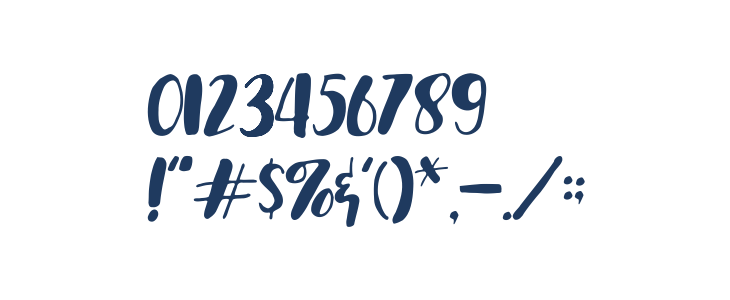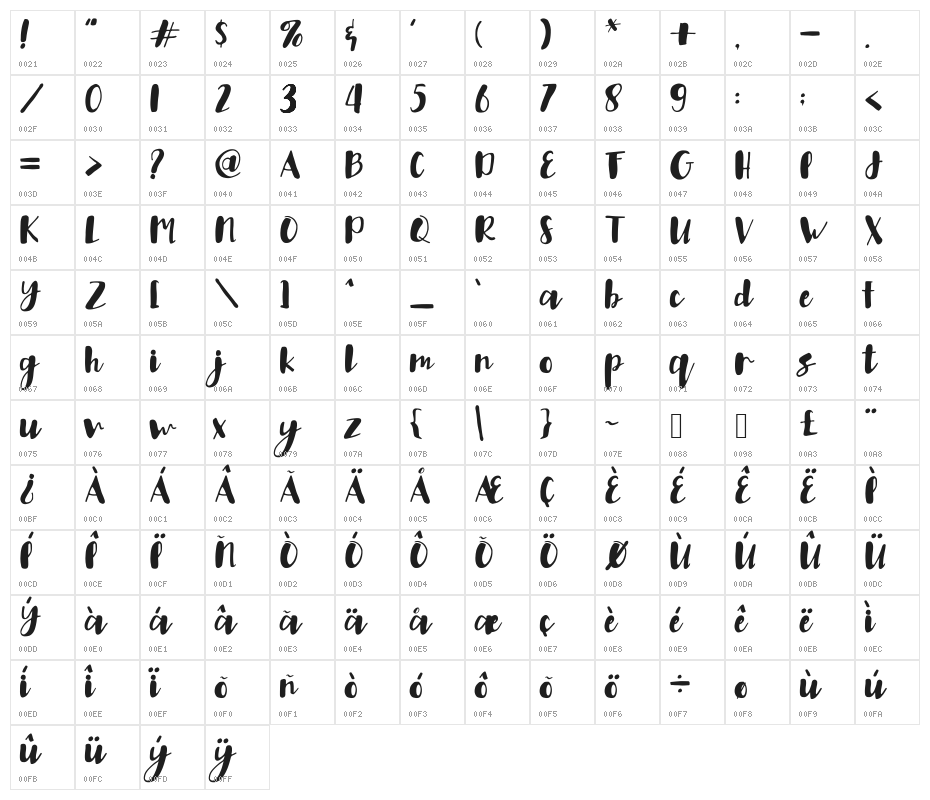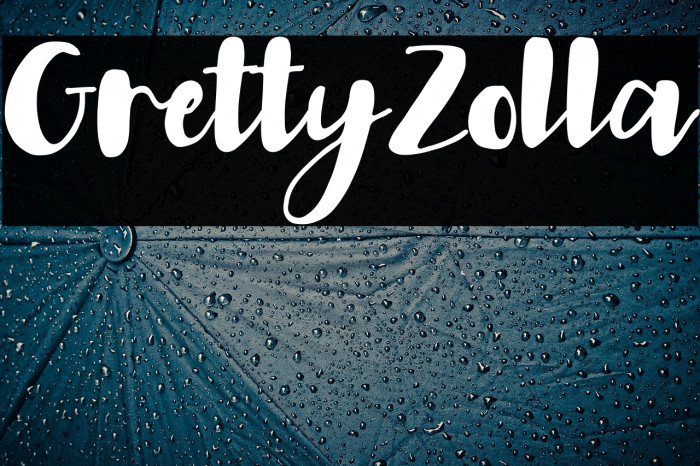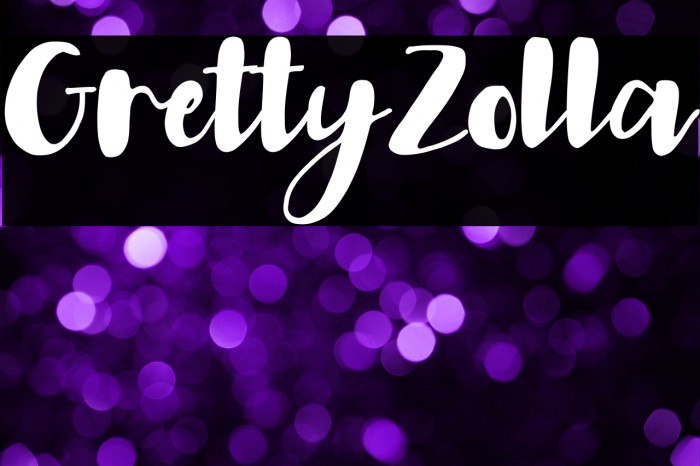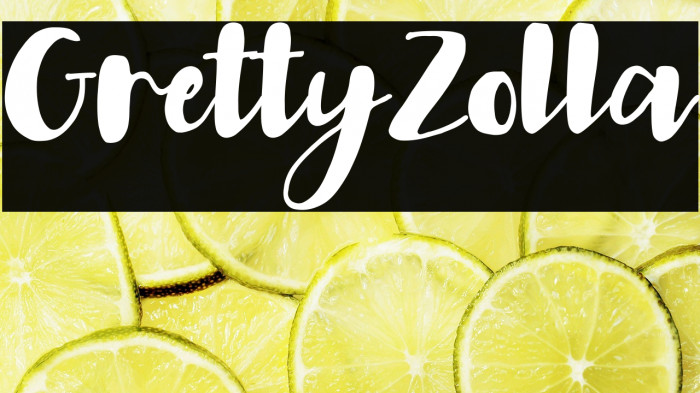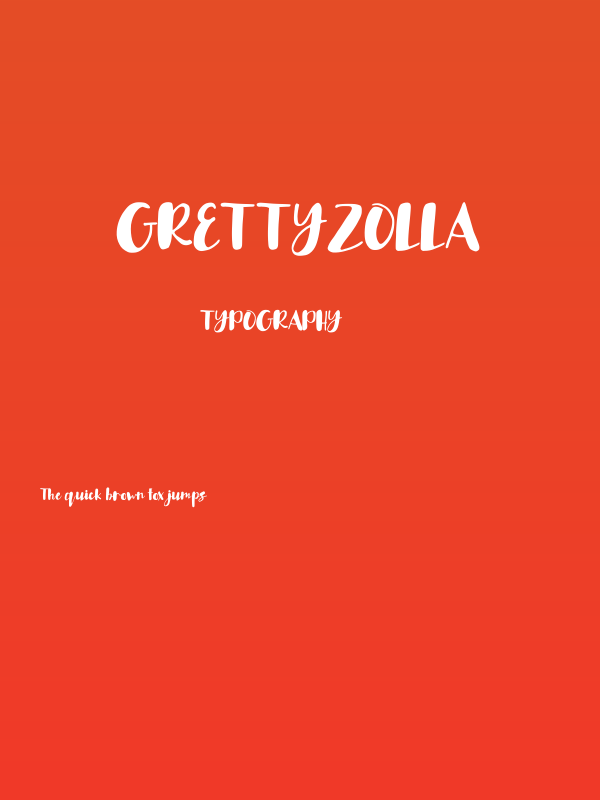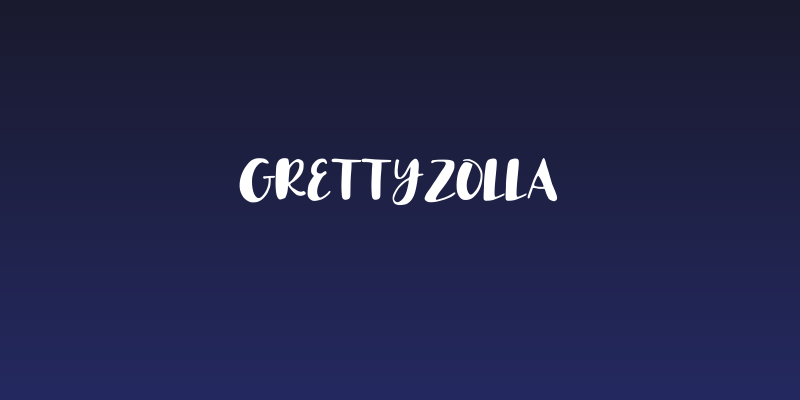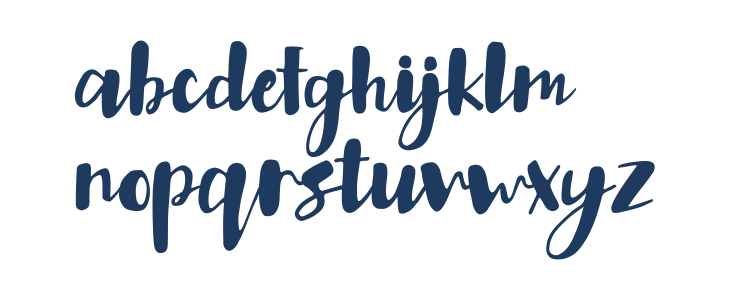
GrettyZolla Font
GrettyZolla Description
This font features a bold and expressive handwritten style, characterized by its fluid and dynamic strokes. The uppercase letters are bold and slightly condensed, while the lowercase letters maintain a playful and casual appearance. The numbers are consistent with the overall style, offering a cohesive look. Special characters are creatively designed, adding to the font's unique personality. The overall design is modern and artistic, making it suitable for projects that require a personal touch.
Use CaseLogos, Headlines, Decorative text
Proposed ProjectsIdeal for greeting cards, invitations, branding, and social media graphics.